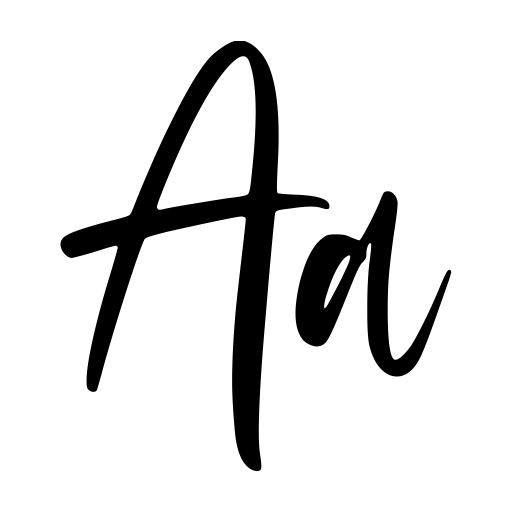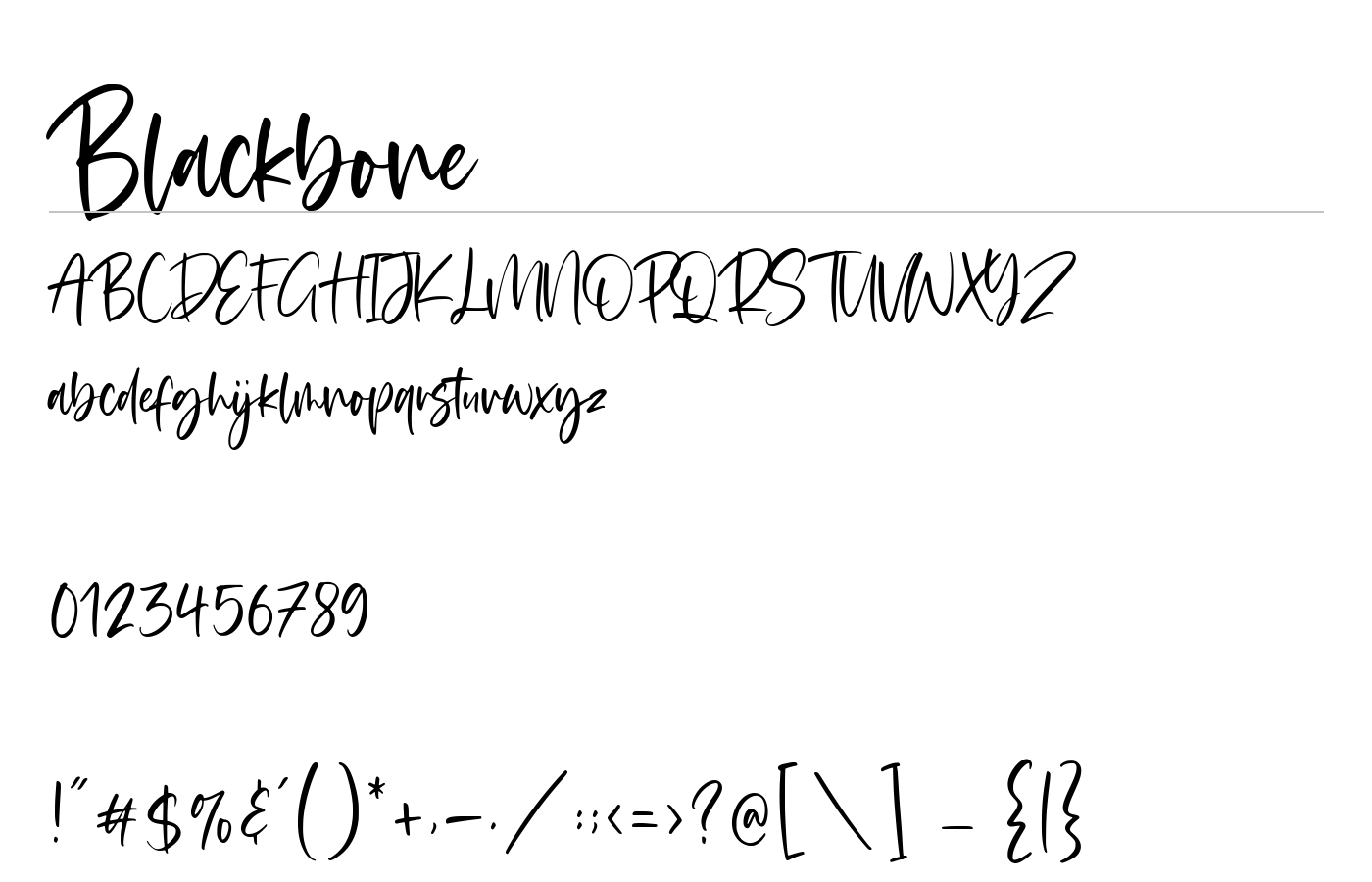
Blackbone is a playful, handwritten script font with a casual and lively character. It features a natural, flowing style with varied stroke widths that give it an energetic and approachable feel, making it ideal for creative branding, invitations, and informal designs that seek a personal touch. Its legibility and distinctive letterforms also work well for logos and social media graphics, where a unique and friendly impression is desired.
Blackbone Font
About Blackbone Font